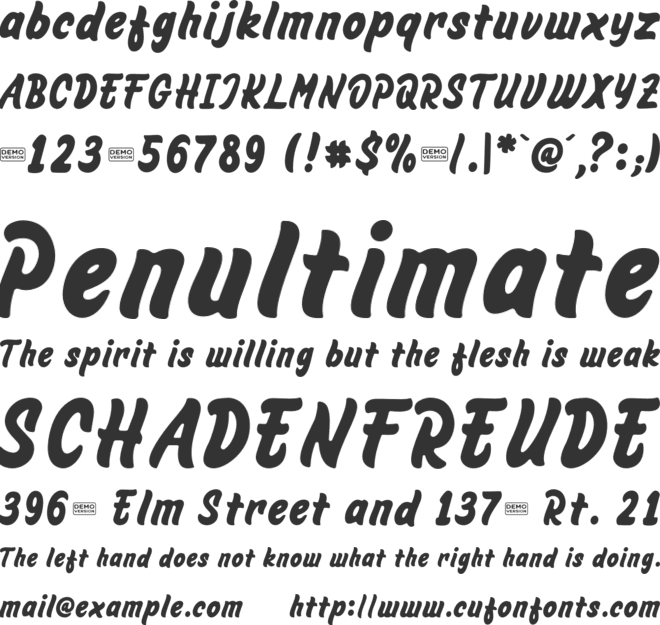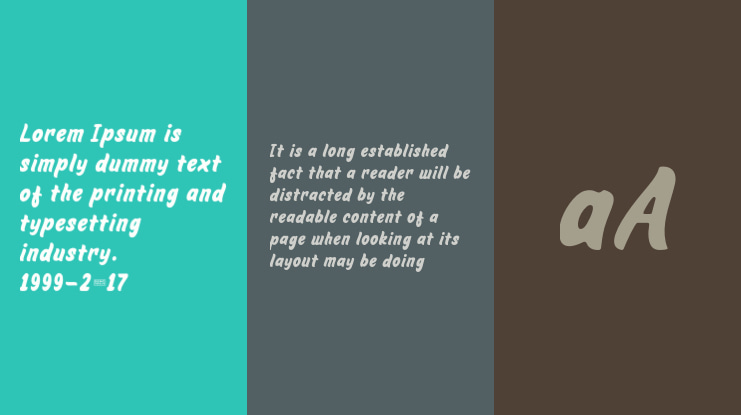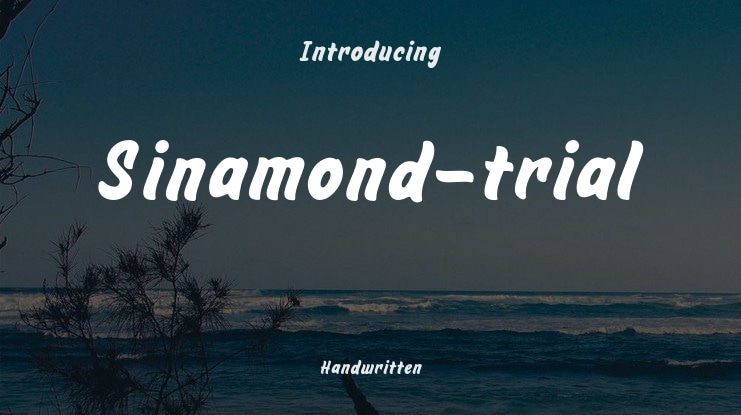
Sinamond-trial Font
Sinamond is bold casual display typeface. It will look stunning on product packages, merchandise, book covers, banner, poster, flyer, book cover, social media, digital print, quotes, etc. Includes in uppercase, lowercase, standard numbers & punctuation, multilingual support.